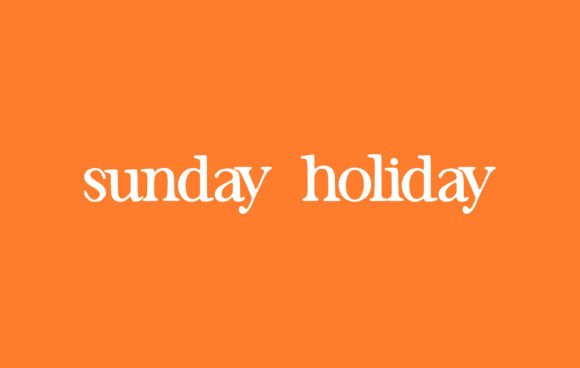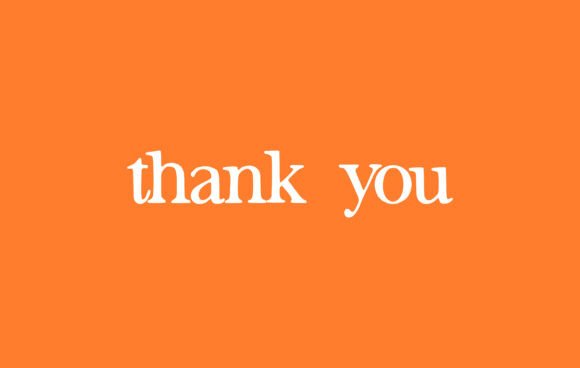
Introduction to Kingfisher Font
Kingfisher is a sweet and friendly font.
Key Features of Kingfisher Font
Why Choose Kingfisher Font?
Kingfisher Font offers exceptional quality and versatility, making it a valuable addition to your design toolkit. Whether you’re creating for personal projects or commercial use, Kingfisher Font delivers professional results.